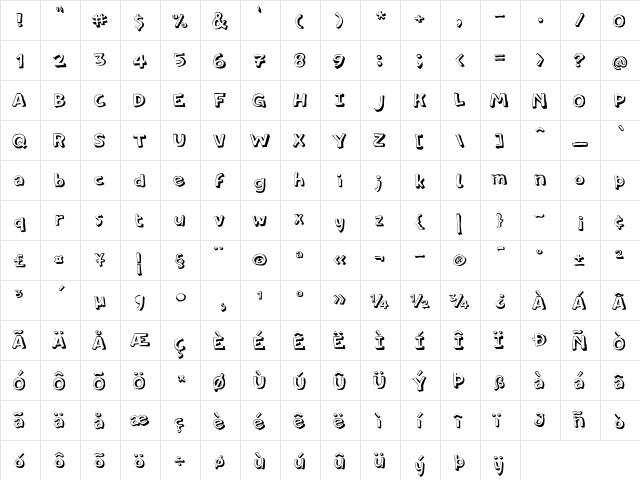
PF Amateur Thin Shadow
| Foundry | Parachute蠗orldwide |
| Designer | Charis Tsevis |
PF Amateur brings ornamental detail and strong personality to headlines and identities, where visual impact matters more than quiet functionality. The delicate stroke weight brings airiness and refinement to layouts.